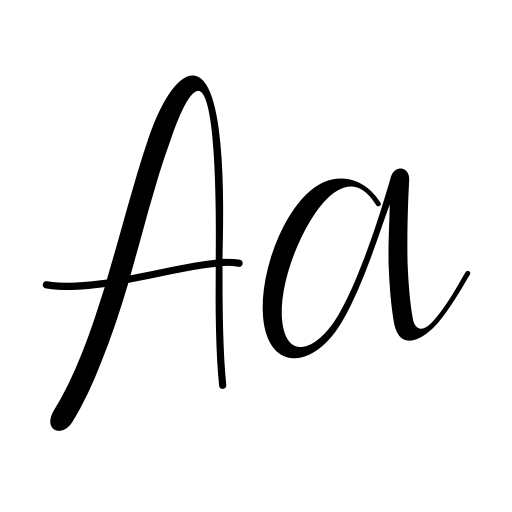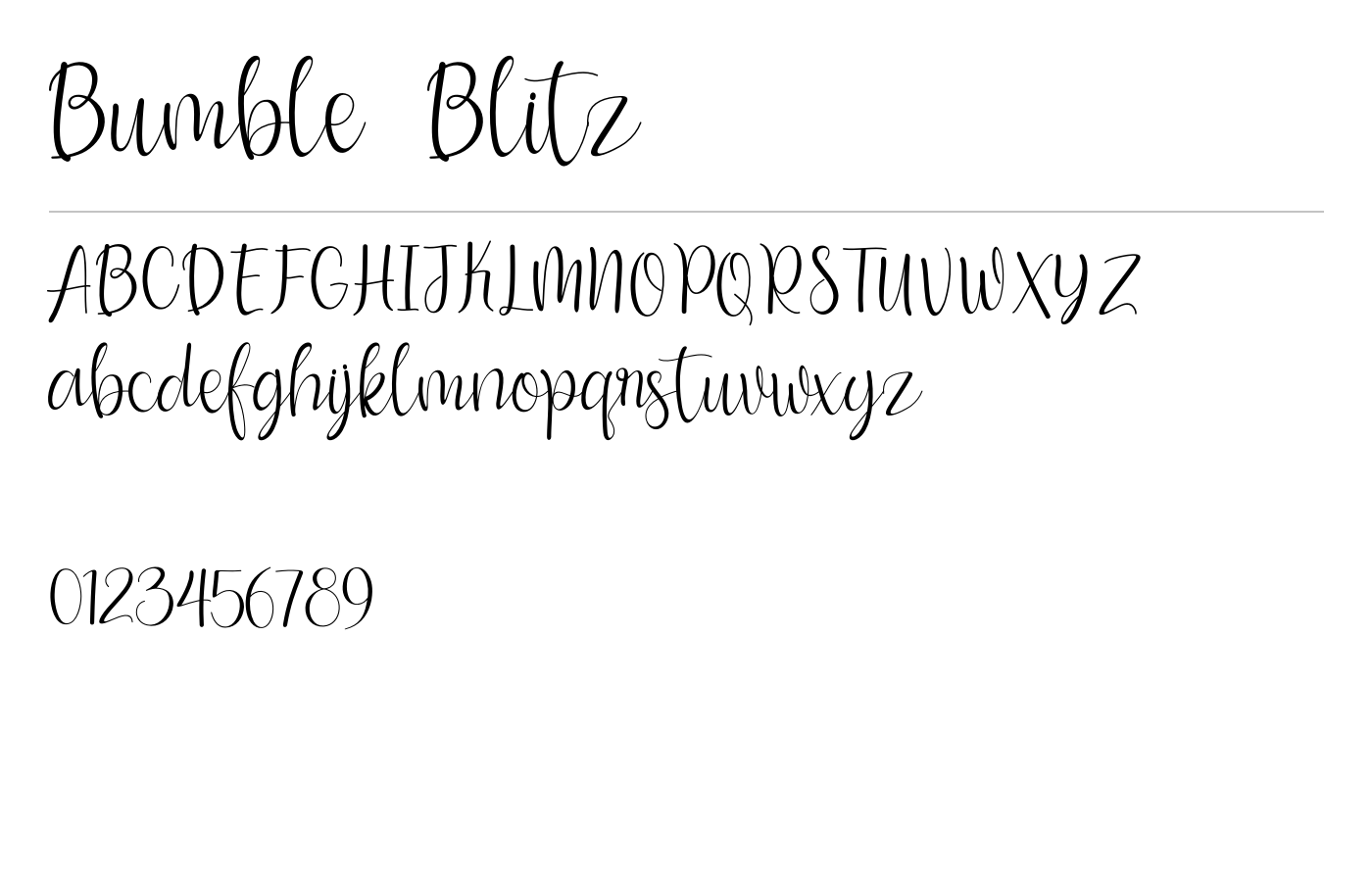
Bumble Blitz is a delicate, handwritten script font with tall, slender letterforms that give it an elegant yet playful feel. Its thin strokes and gentle curves create a light, airy look ideal for creative branding, invitations, and feminine designs where a personal, charming touch is desired. This font works beautifully in headlines and decorative text, adding a stylish, approachable vibe without overwhelming the reader.
Bumble Blitz Font